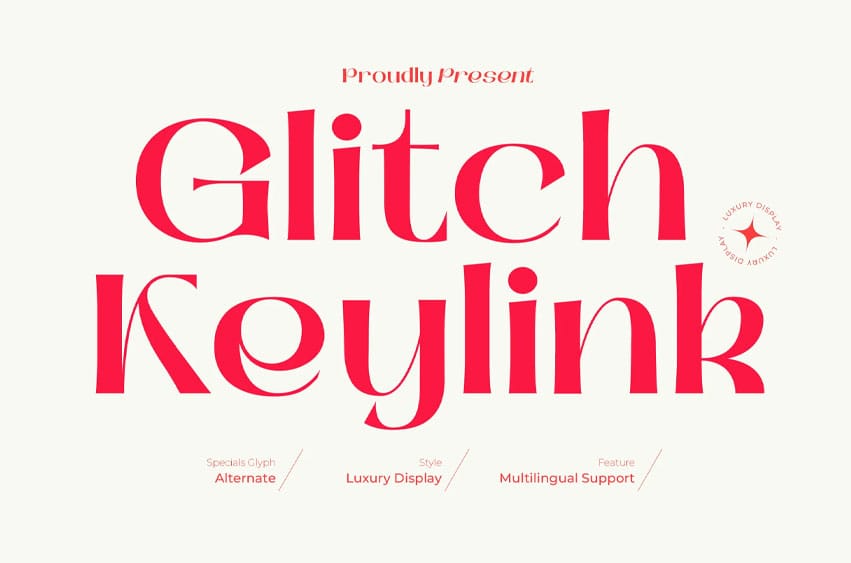
Glitch Keylink Font is a luxury display serif crafted to embody sophistication, precision, and elevated visual presence. Built on elegant serif foundations with sculpted proportions, it introduces refined detailing and distinctive link-inspired accents that create a signature high-end character.
The result is a typeface that feels exclusive, polished, and confidently modern.
KEY FEATURES
- Luxury Serif Display – Elegant, high-fashion letterforms with commanding presence
- Refined Proportions – Sculpted shapes designed for premium aesthetics
- Signature Keylink Accents – Subtle structural details that add exclusivity
- Graceful Contrast – Smooth stroke transitions for upscale readability
BEST SUITED FOR
- Luxury Branding & Visual Identity
- High-End Logos & Wordmarks
- Fashion Editorial & Covers
- Premium Packaging & Labels
- Boutique & Jewelry Branding